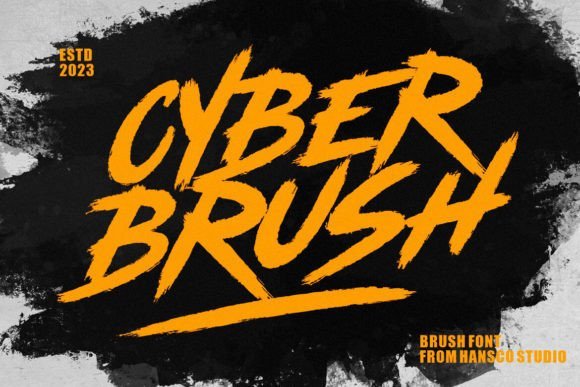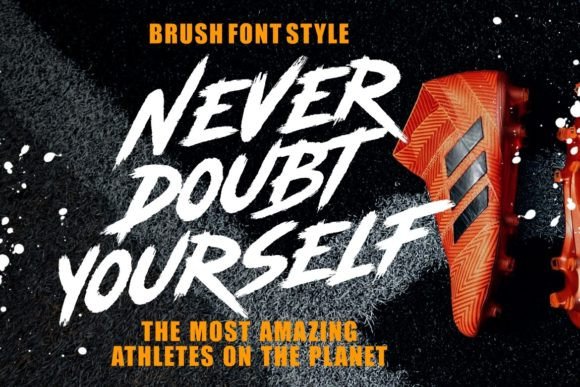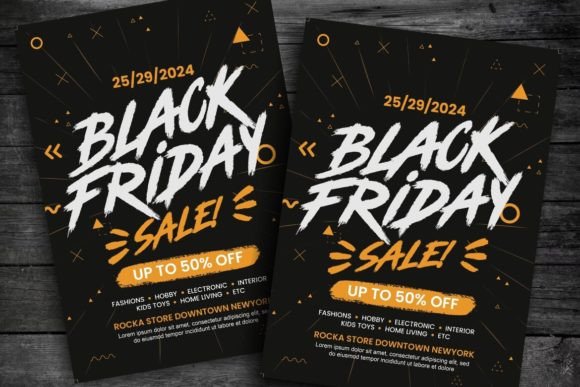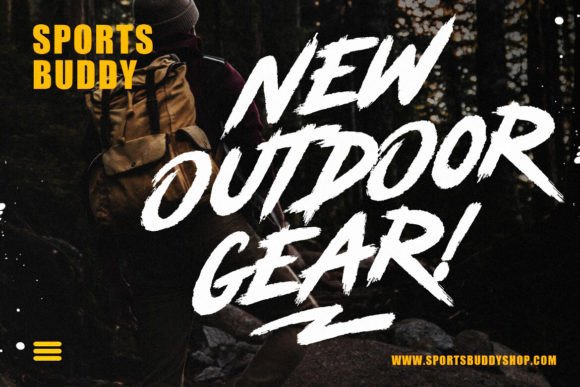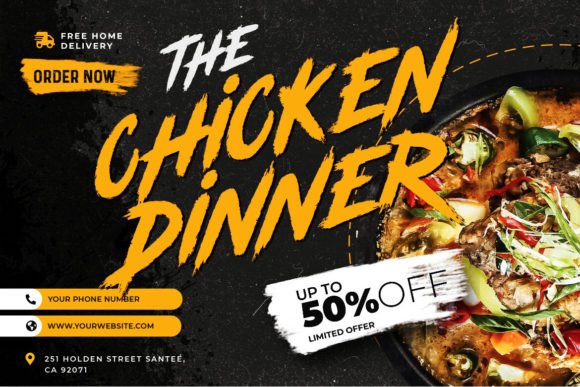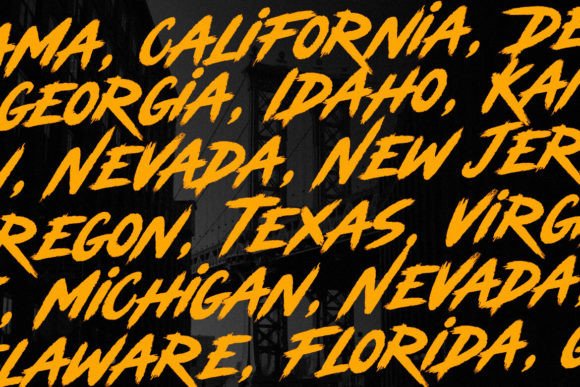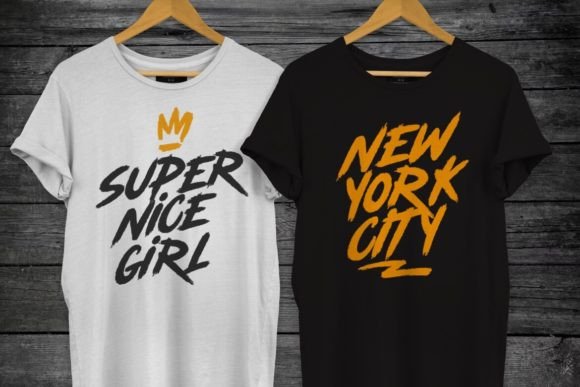
The Brush Stroke of Creativity: Introducing Cyber Brush Font
Have you ever stared at a blank canvas, waiting for the perfect idea to strike? For designers, those moments of creative spark are what drive us to push the boundaries of our craft. And when the idea finally hits, it’s exhilarating – like a bold brush stroke on a canvas, leaving a lasting impression. This is exactly what the Cyber Brush Font aims to capture, with its unique blend of texture and style.
Designed to evoke the feeling of a dry brush stroke, this font is perfect for creating eye-catching logos, product branding, and print materials. Its detailed texture and rough style give it a bold, rugged look that’s impossible to ignore. Whether you’re a seasoned designer or just starting out, the Cyber Brush Font is a valuable tool to have in your arsenal.
Cyber Brush Font Key Features
- Unique Characteristics: Distressed, brush-like texture and subtle imperfections for a hand-drawn look
Cyber Brush Font Review
Overall, I think Cyber Brush Font is a unique and attention-grabbing choice for digital designers. ✨ The font’s futuristic and edgy aesthetic makes it perfect for sci-fi themed projects or any design that requires a bold and modern look. ✨ I also appreciate the font’s versatility, as it can be used for both headings and body text.
However, I do have a few concerns about this font. ⚠️ First, it may not be the best choice for long blocks of text, as it can be difficult to read in larger quantities. ⚠️ Additionally, the font’s stylized nature may make it harder to pair with other fonts or design elements, which can limit its use in more complex designs.
- Unique and futuristic aesthetic ✨
- Perfect for sci-fi themed projects or modern designs ✨
- Can be used for both headings and body text
- May not be suitable for long blocks of text ⚠️
- May be difficult to pair with other fonts or design elements ⚠️
While Cyber Brush Font has some limitations, I think it’s a great choice for designers who want to add a bold and modern touch to their projects. With careful consideration of its use and pairing, this font can be a powerful tool in any designer’s arsenal.
The Cyber Brush Font is ideal for:
- Creating futuristic or sci-fi themed designs.
- Adding a touch of edginess to your branding materials.
- Designing digital products, such as apps or websites.
Alternatives to Cyber Brush Font
Great Vibes is a modern, handwritten font that is perfect for creative projects, such as posters, flyers, and social media graphics. It has a friendly and approachable feel, making it ideal for branding and advertising.
Comparison to Cyber Brush Font: Great Vibes has a more refined and elegant look compared to Cyber Brush Font, which has a more casual and hand-painted feel. Great Vibes is also more versatile and can be used for a wider range of projects.
Pacifico is a beautiful, cursive font that is perfect for creating a relaxed and sophisticated atmosphere. It is ideal for projects such as wedding invitations, menus, and other formal documents.
Comparison to Cyber Brush Font: Pacifico has a more elegant and refined look compared to Cyber Brush Font, which has a more casual and playful feel. Pacifico is also more suitable for formal projects, while Cyber Brush Font is better suited for creative and informal projects.
Carolyna Pro is a stylish, handwritten font that is perfect for creating a modern and trendy look. It is ideal for projects such as fashion magazines, advertisements, and social media graphics.